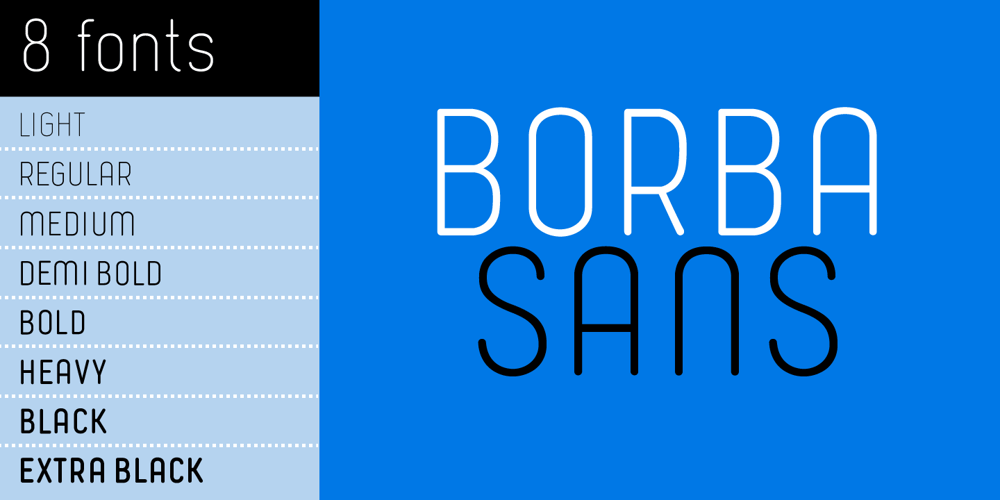
Borba Sans Font Family was designed by Edyta Demurat and published by Edyta Demurat. Borba Sans contains 8 styles and family package options. Borba Sans is based on Borba. It is really readable sans serif typeface which may be used whenever you need a stylish and modern typography.